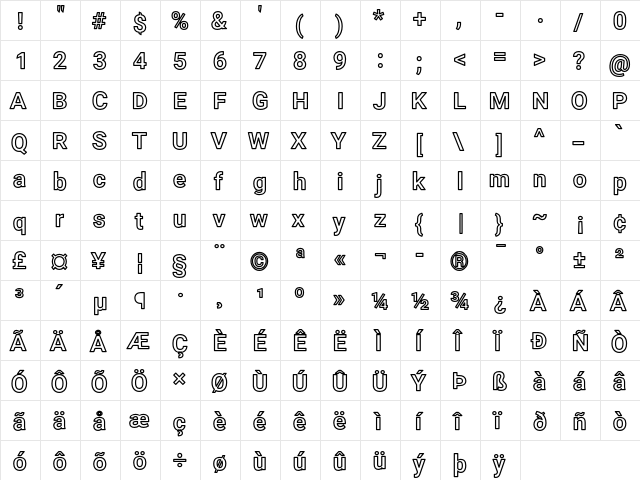
Asimov Regular
Design Context for Asimov Typeface
Asimov is a composed and adaptable typeface that performs quietly and consistently across a wide range of design contexts.